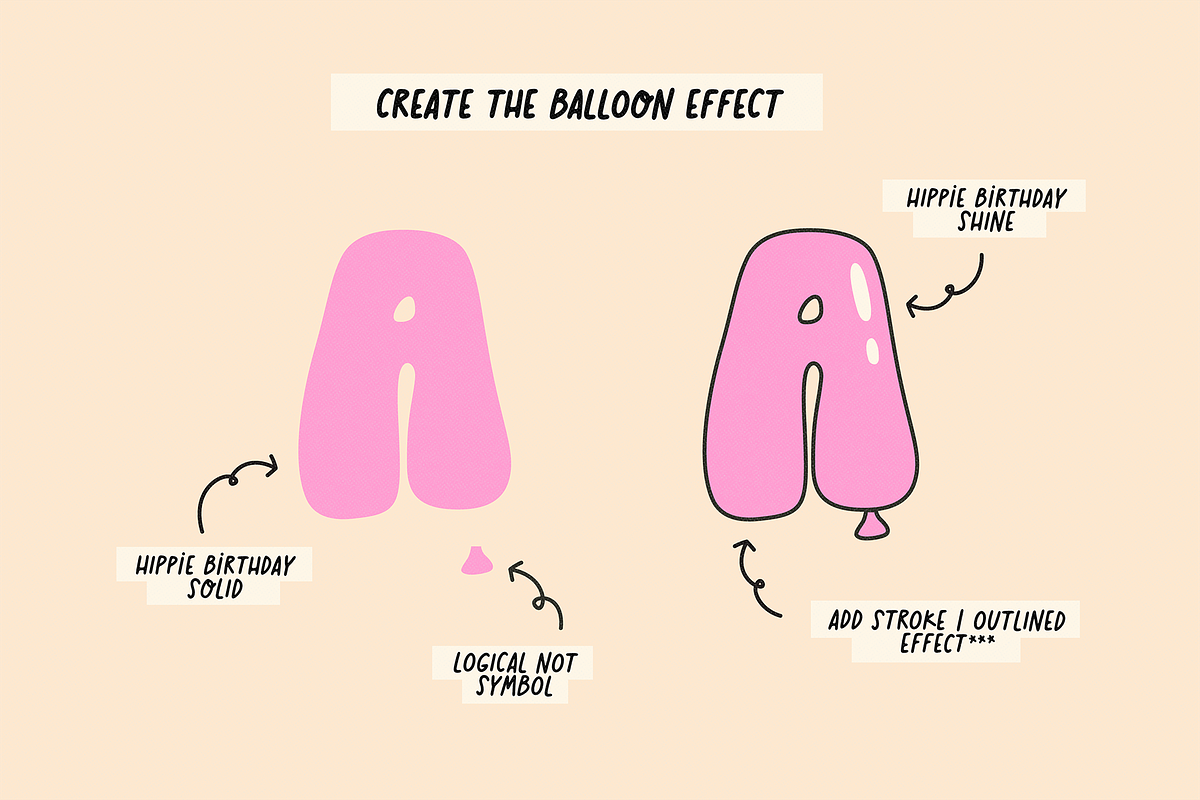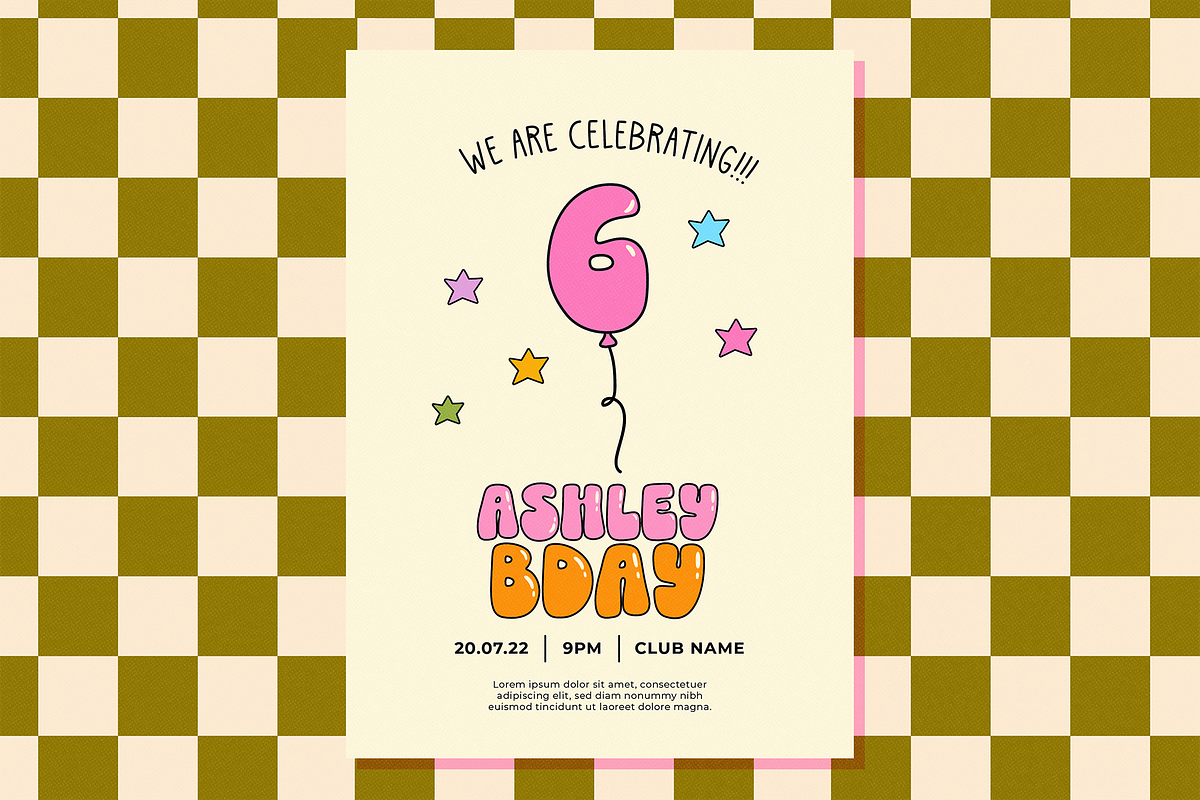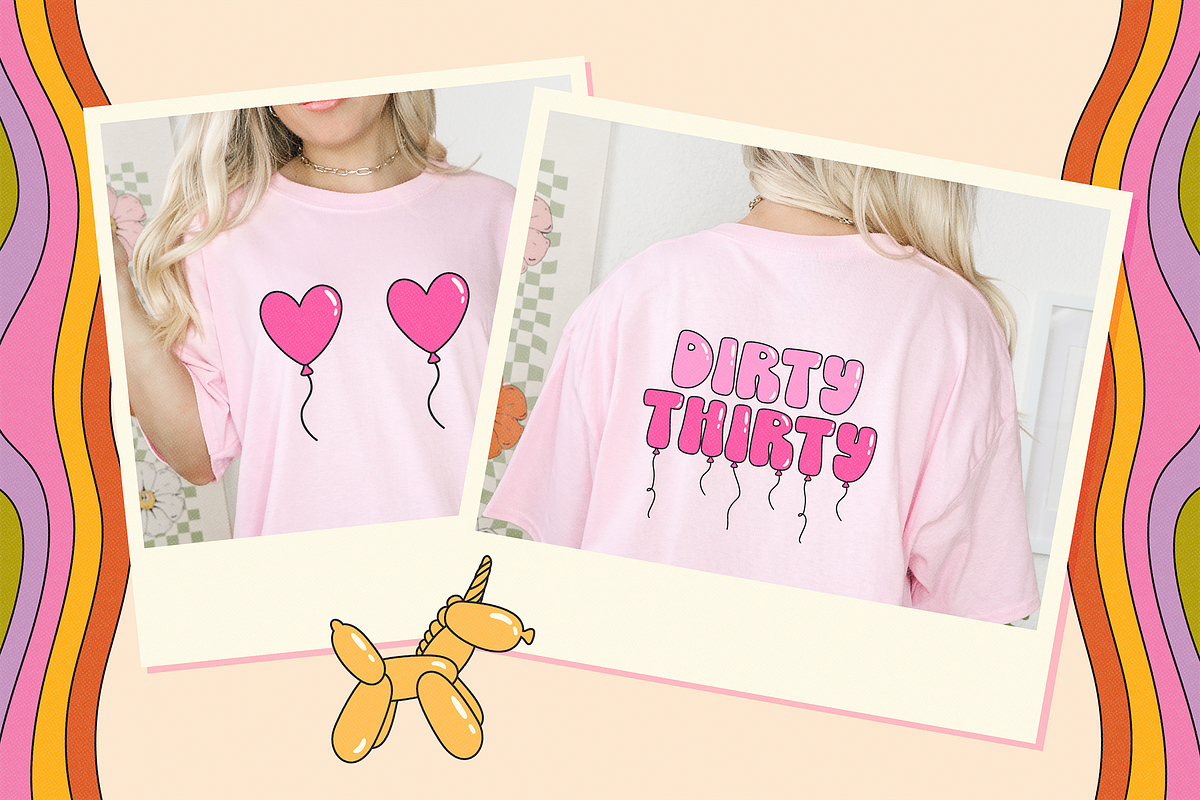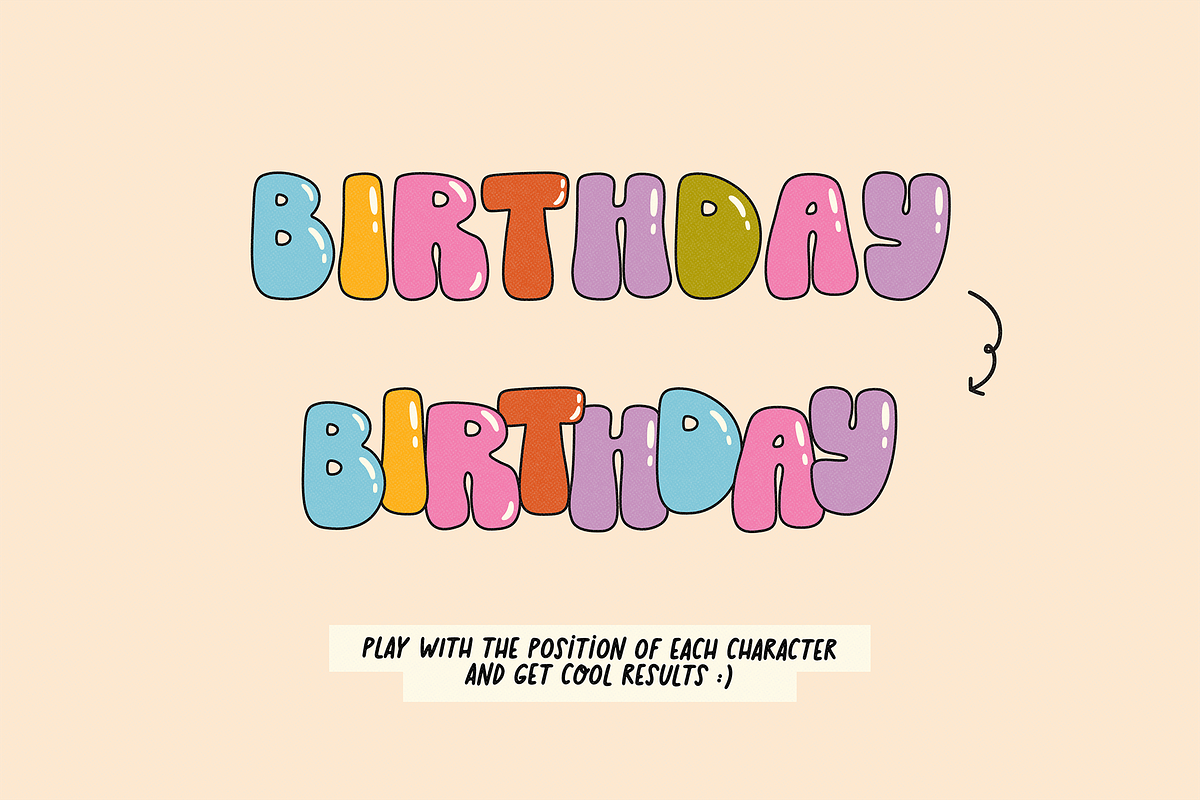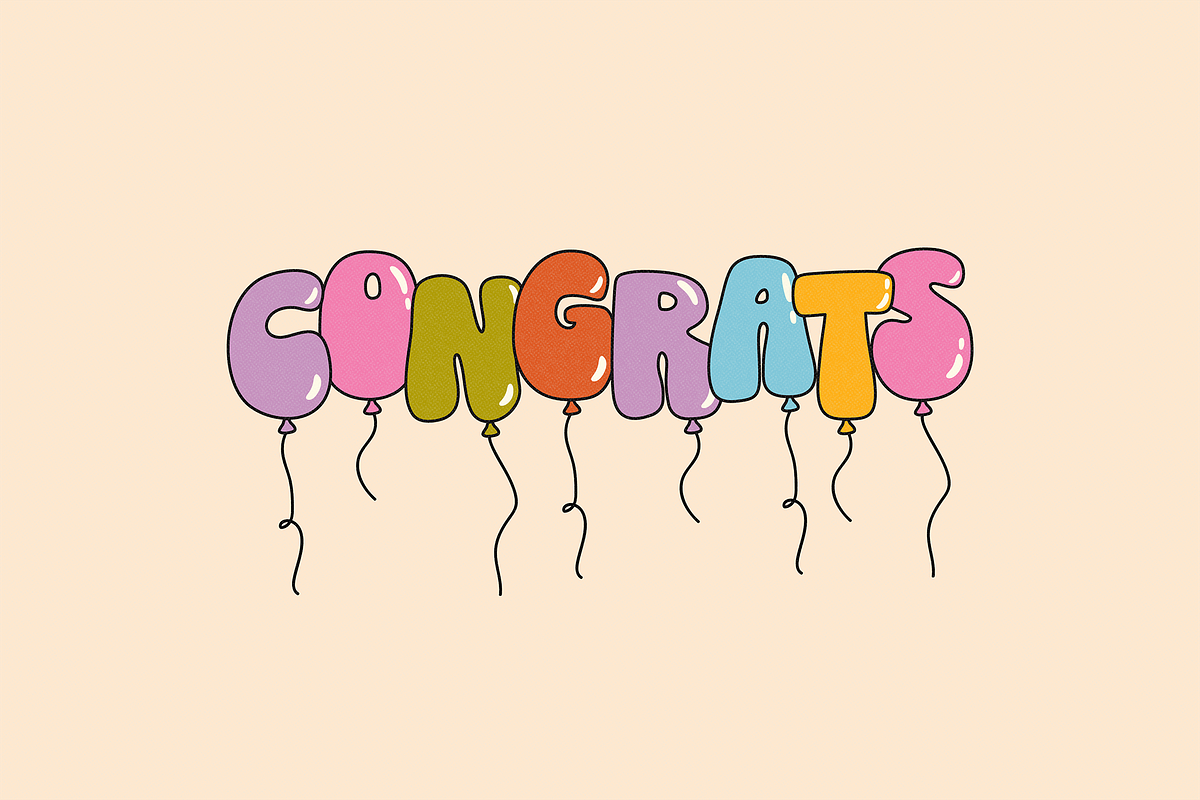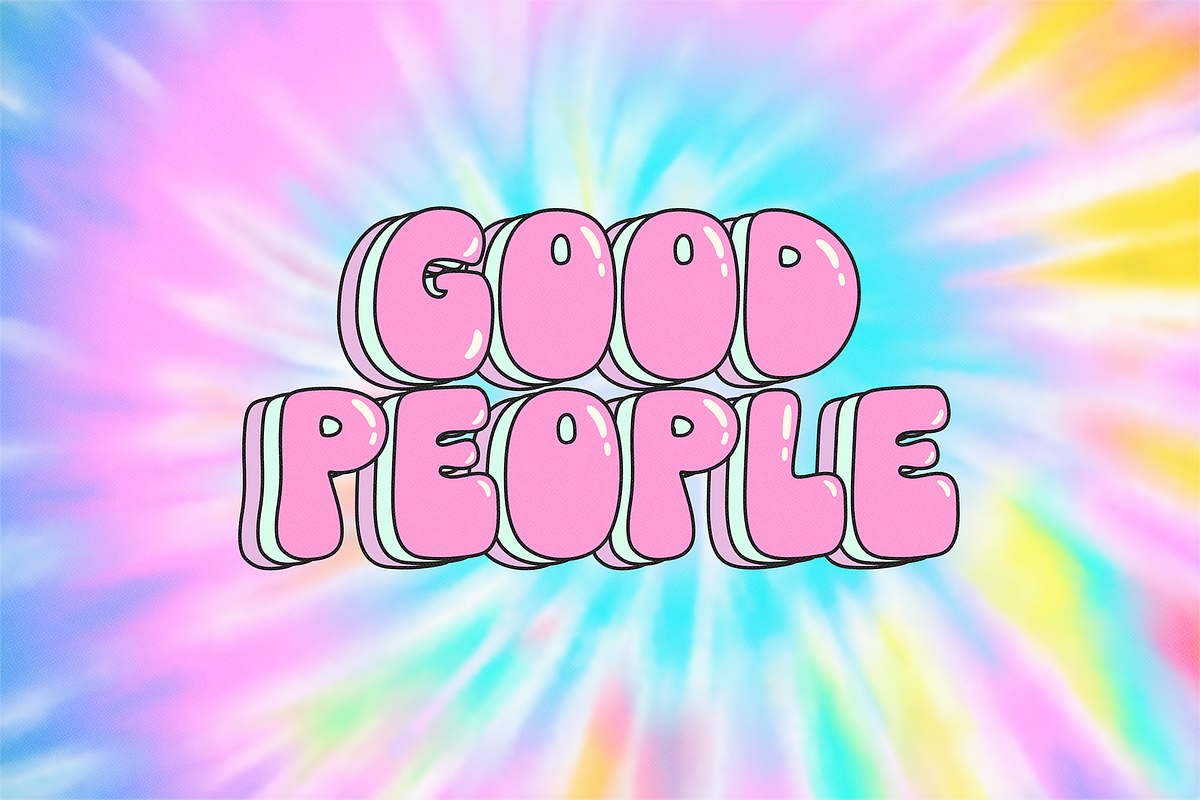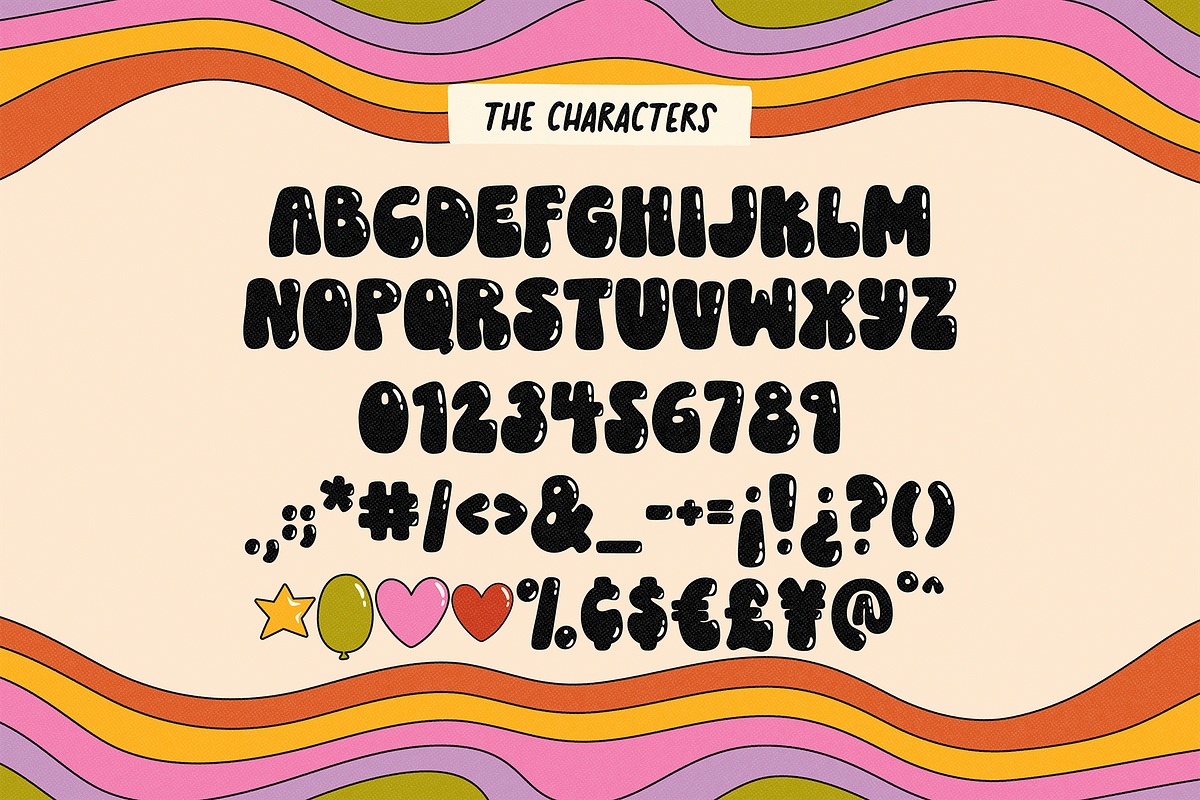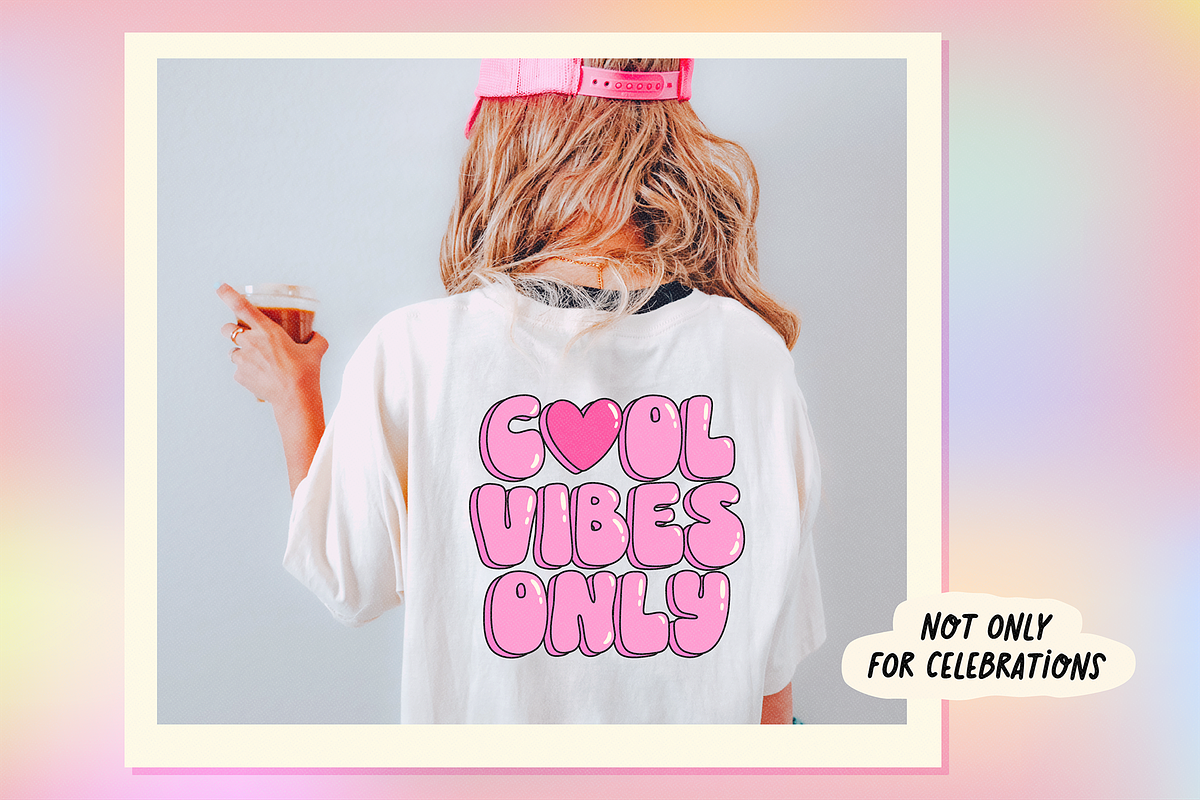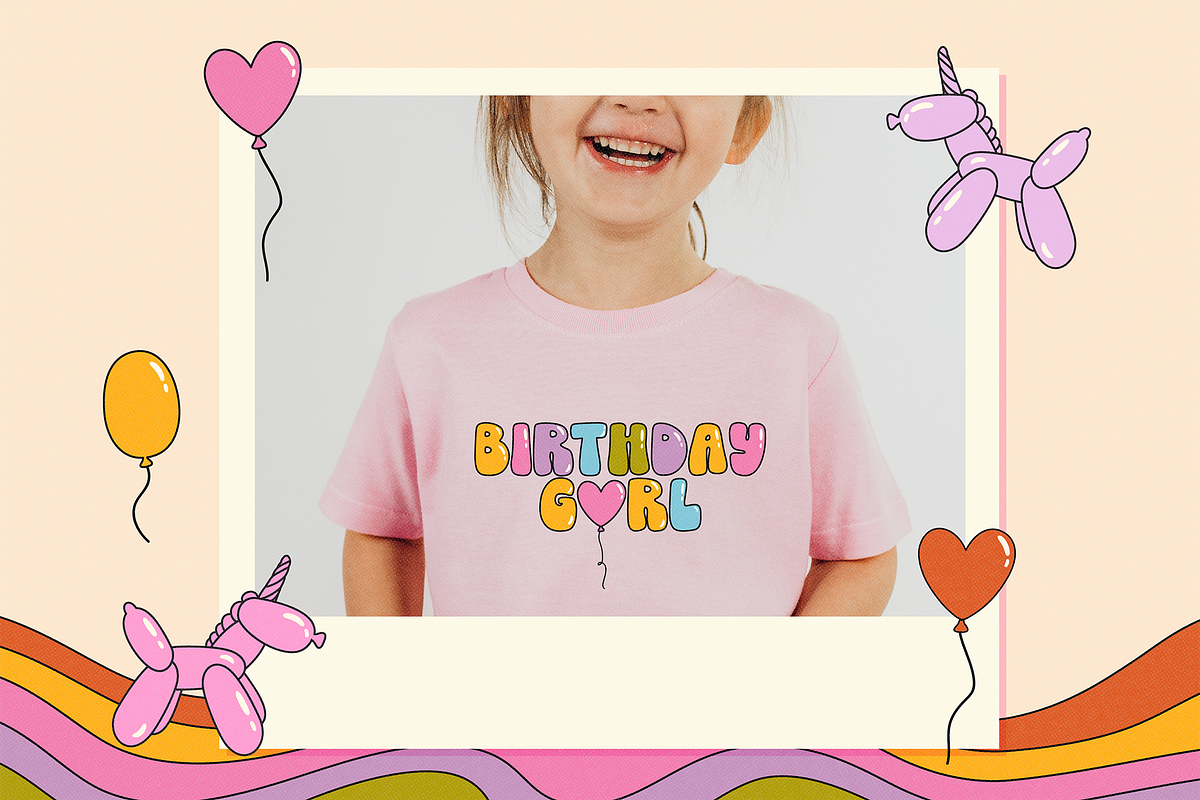
HIPPIE BIRTHDAY | Balloon Font
HIPPIE BIRTHDAY – A groovy balloon and festive font.
Hippie Birthday is a groovy, retro-inspired balloon-style typeface perfect for adding a festive, playful vibe to your designs. Ideal for invitations, party decor, prints, and special occasions, this font combines a modern, fun touch with a retro, hippie flair.
While designed with celebrations in mind, Hippie Birthday is flexible enough to be used for a variety of projects beyond birthdays. Add a joyful, whimsical feel to your next design with this unique font!
✷ Use the 8 symbols included to make cute compositions.
- Period centered symbol · – Big Heart (as a substitute for the letter o)
- Bullet symbol • – Small heart
- Logical not ¬ – Balloon “thing”
- Left Curly Bracket { – Balloon string 1
- Right Curly Bracket } – Balloon string 2
- Back Slash – Balloon string 3 (short)
- Bracket left [ – Star
- Backet right ] – Balloon SHAPE
- This time, I decided NOT to include an "outlined" version. I realized that in this case, it's easier to apply the "outlined" effect to the letters directly within the design program (Illustrator, Photoshop, Canva, etc.). However, the main reason for this is to allow you to customize the outline thickness according to your preference.
- Also, I decided not to make the font entirely balloon-style, so you can use it for many other things, not just celebrations (I hope this decision works for you, but you know you can always reach out if you have any suggestions).